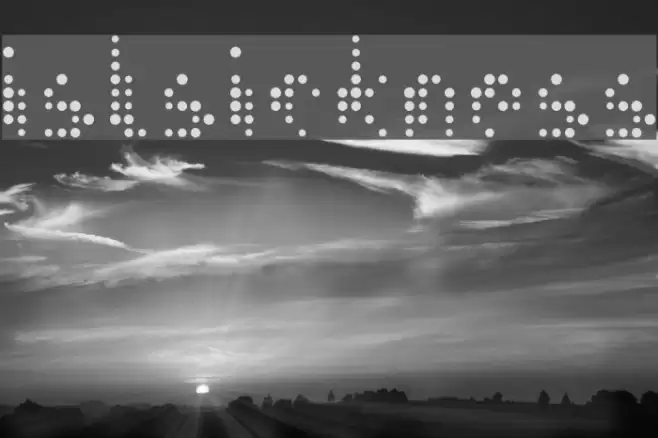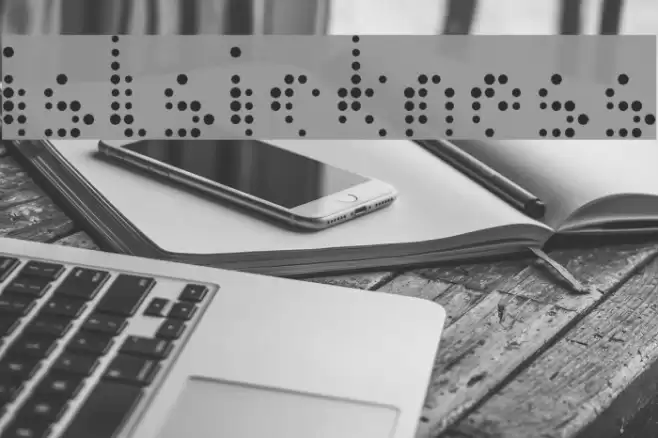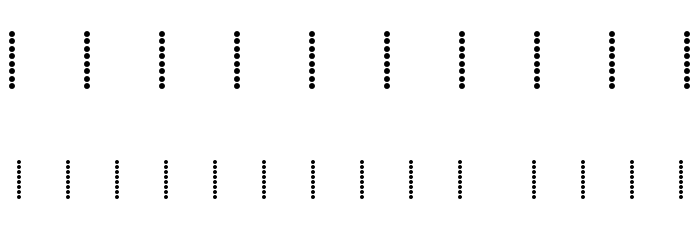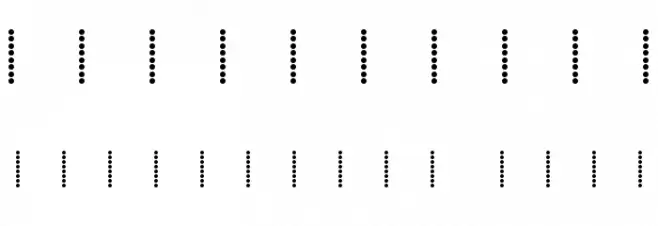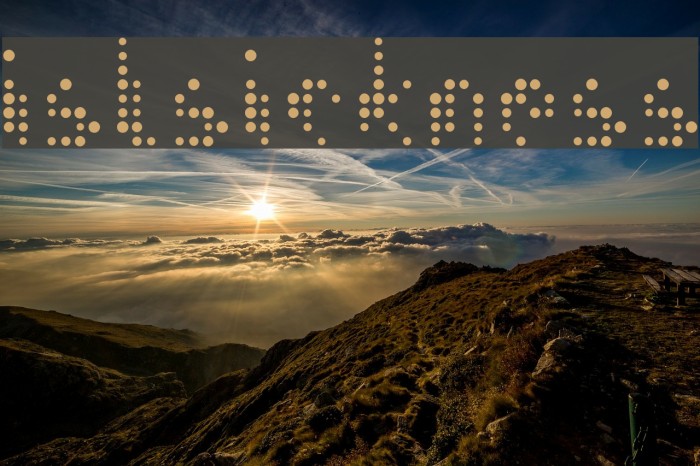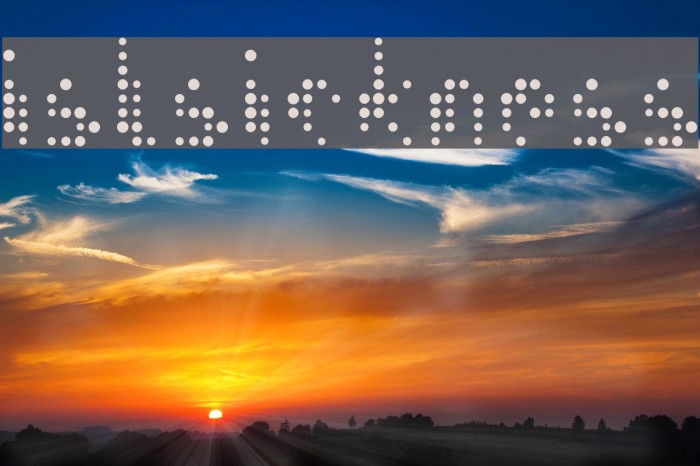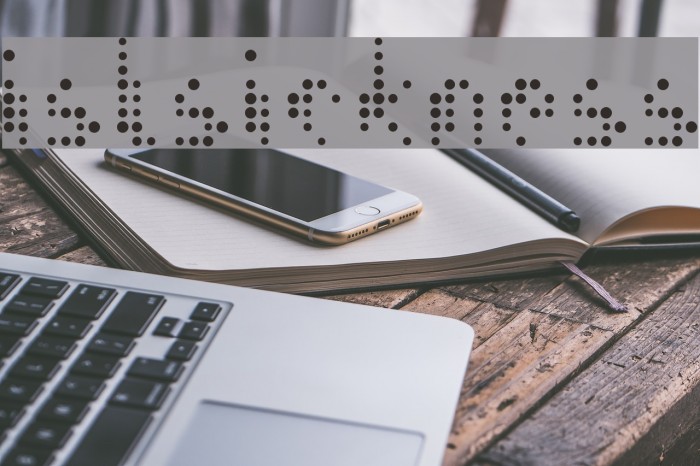
ISL_Sickness Font
ISL_Sickness Description
This font is a unique and creative design composed entirely of dots, forming each character with a dotted pattern. The letters are crafted with a consistent dot size, creating a uniform appearance across both uppercase and lowercase alphabets. The style is playful and modern, with a distinct digital or pixelated aesthetic. The spacing between the dots is consistent, ensuring readability while maintaining the decorative nature of the font. This design is particularly eye-catching and would stand out in any project that requires a modern and innovative look.
A modern, dotted font with a playful and digital aesthetic from Futuristic fonts.
- Proposed Projects: Ideal for digital art projects, modern posters, creative branding, and tech-themed designs.